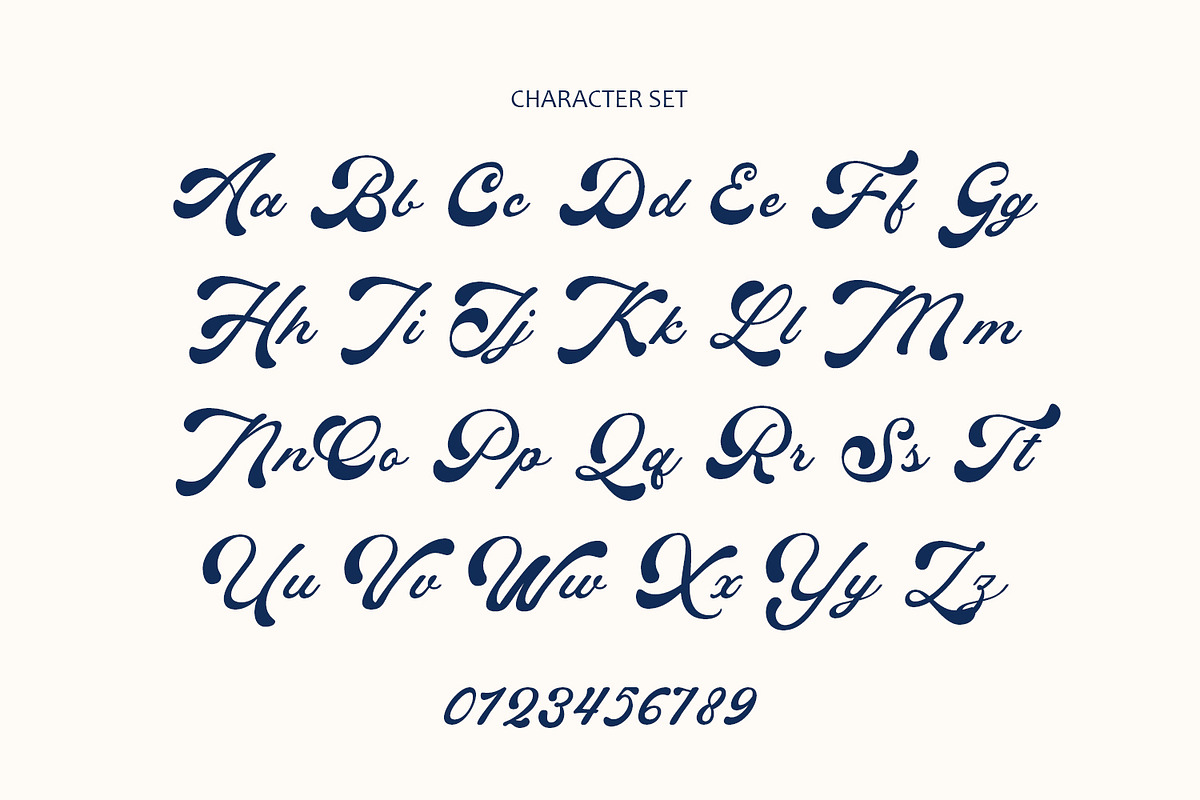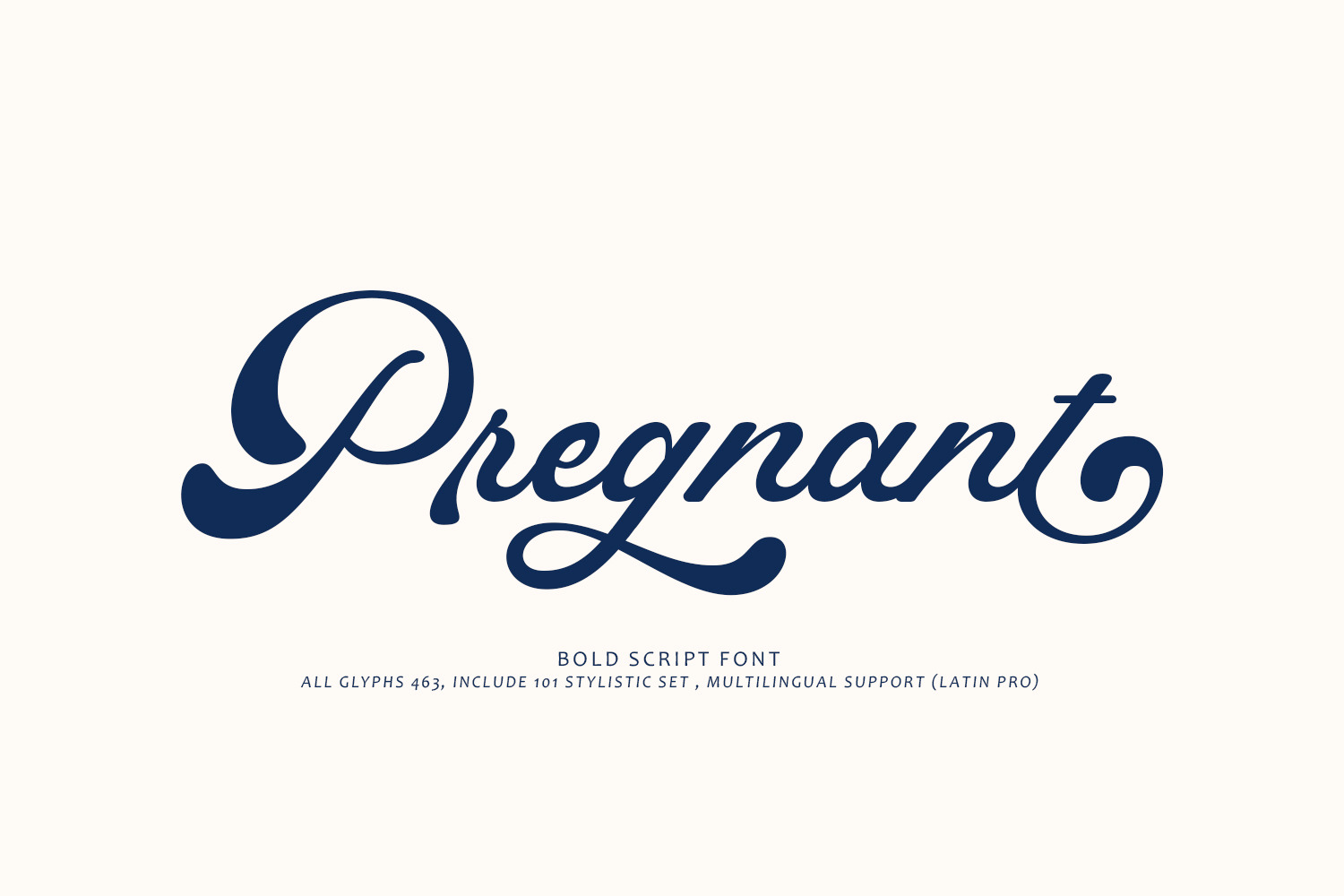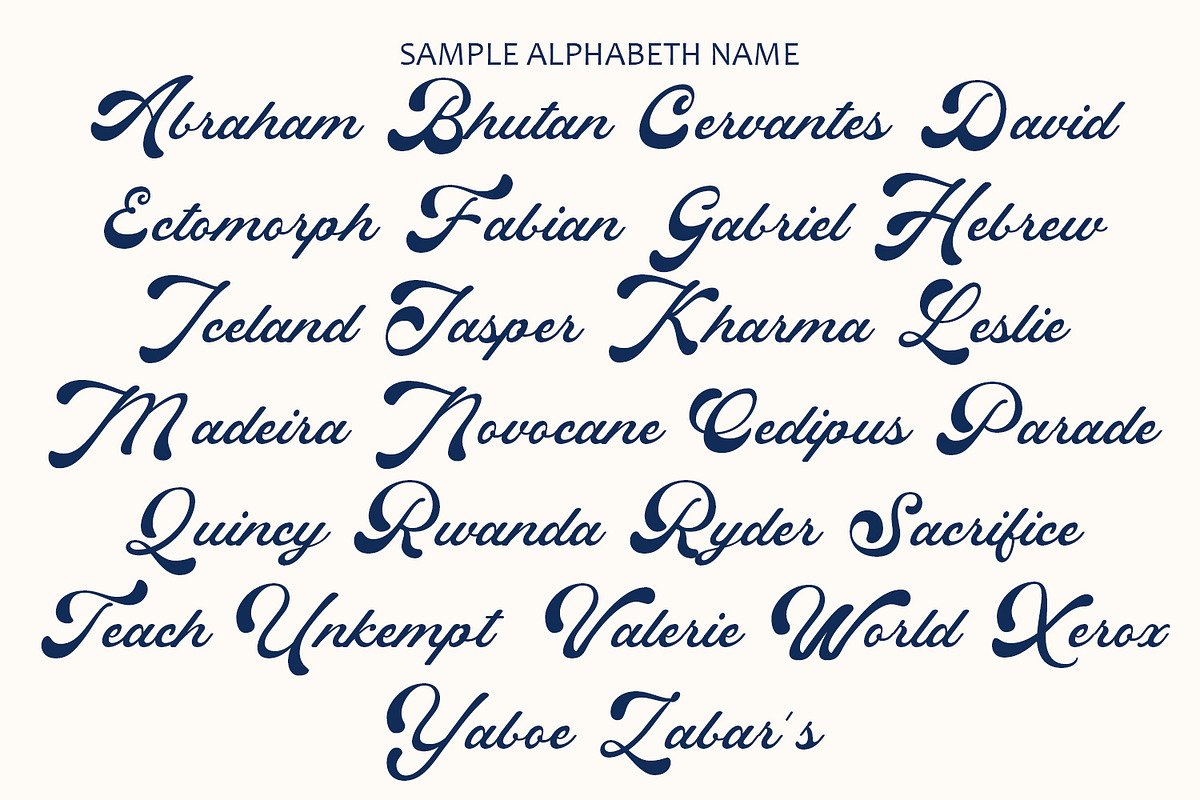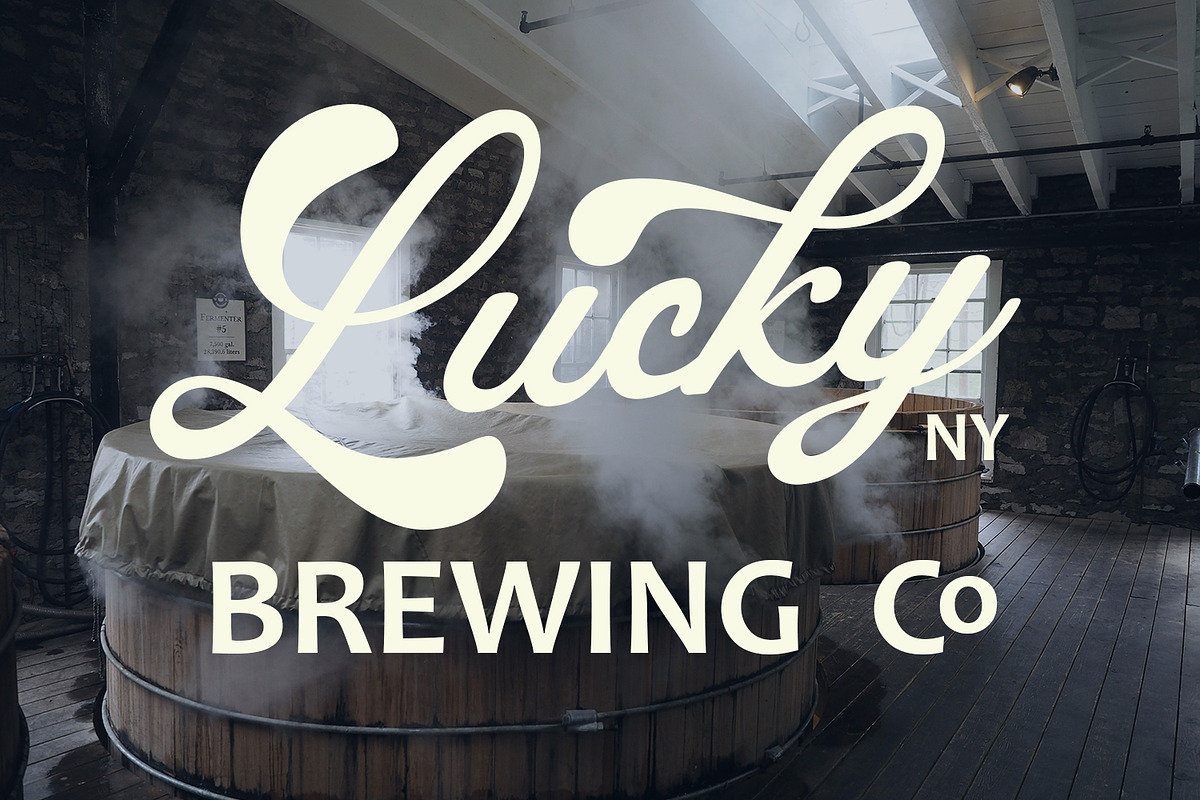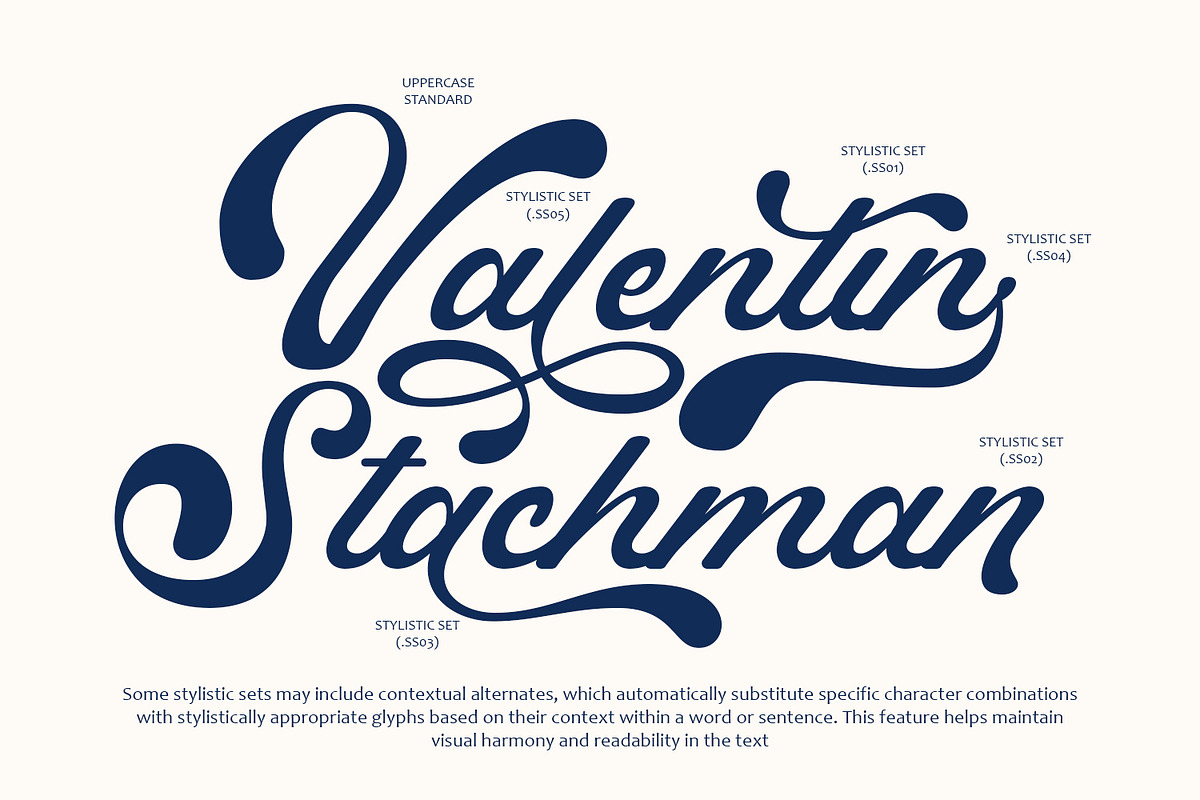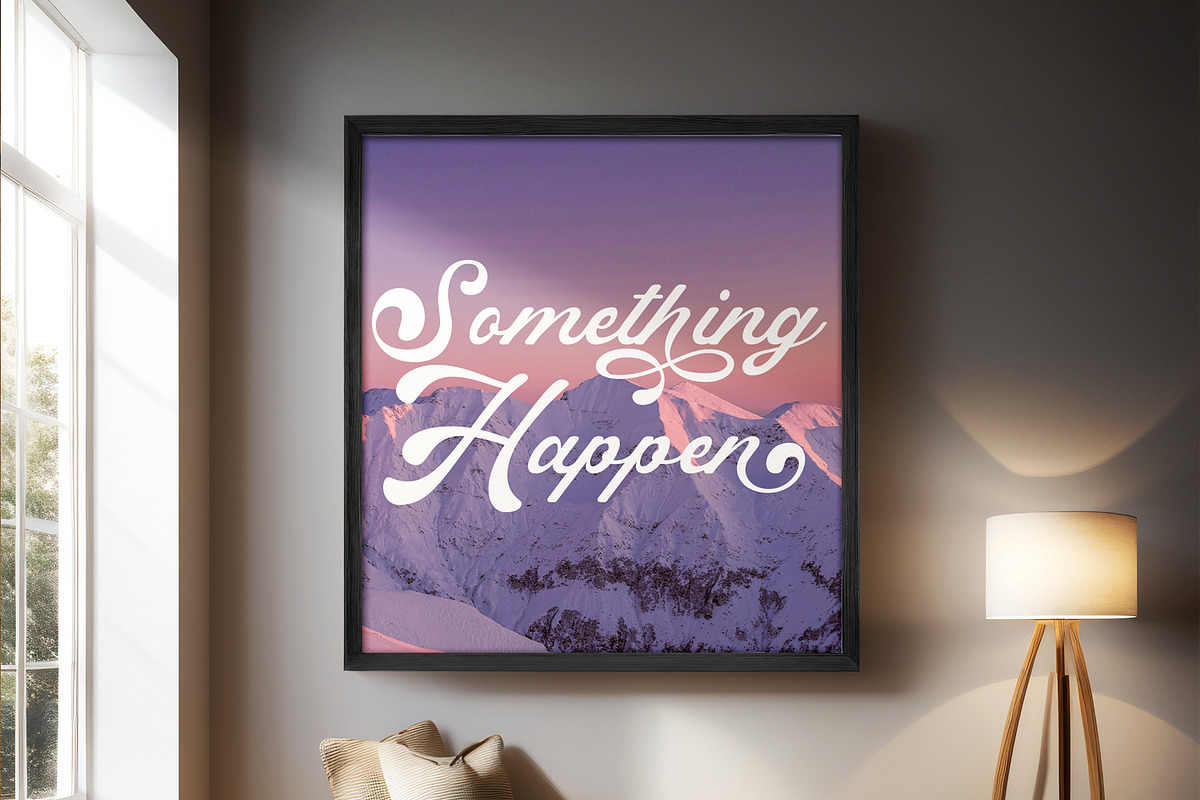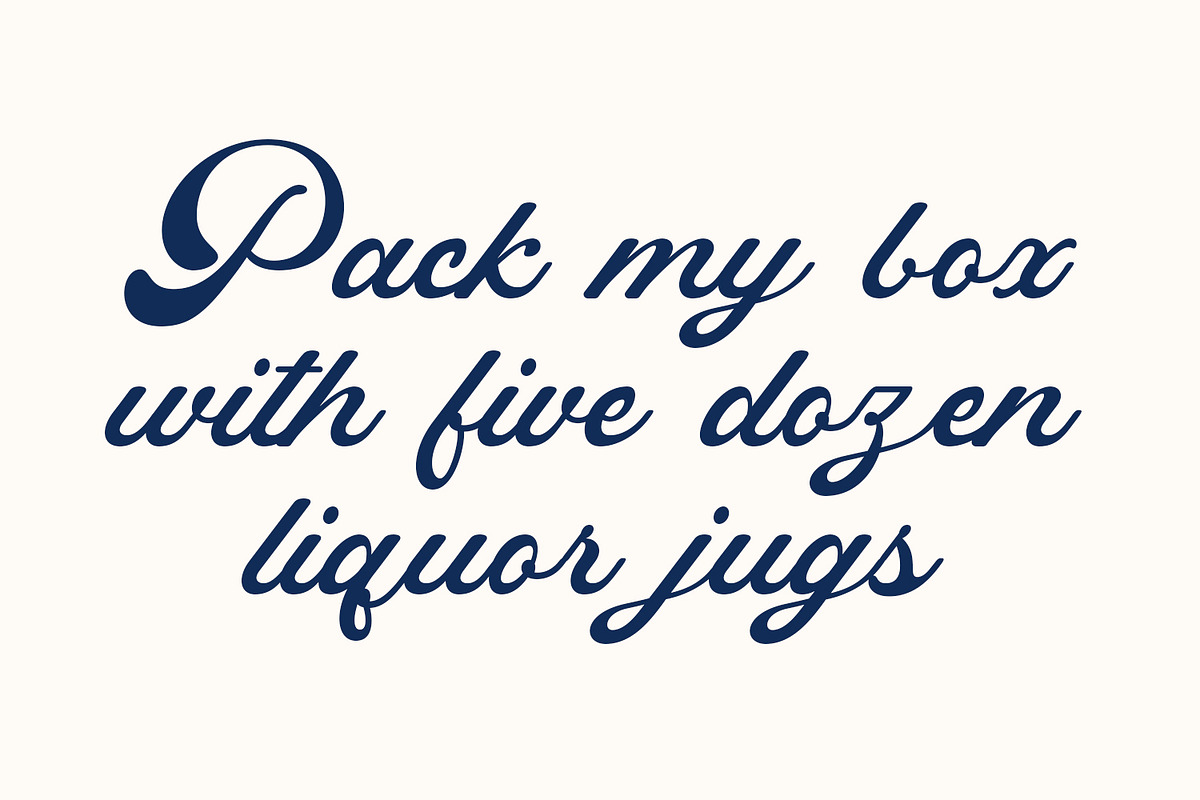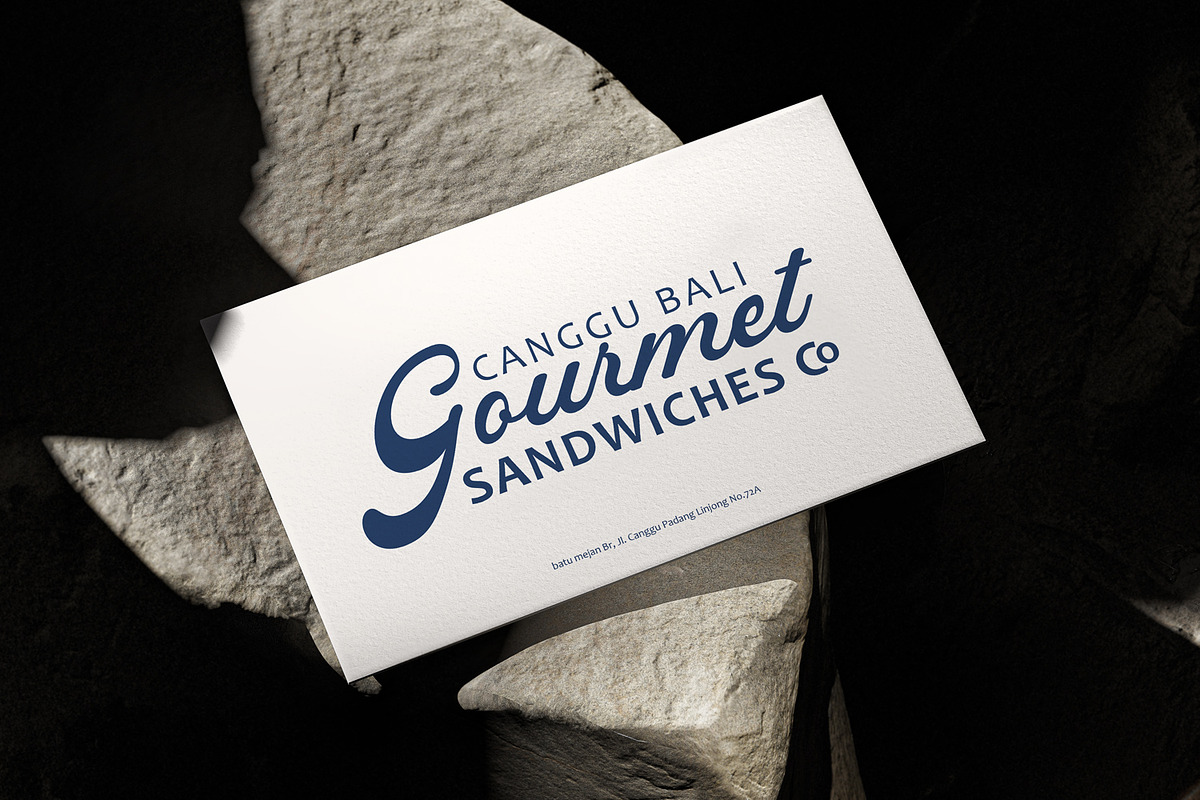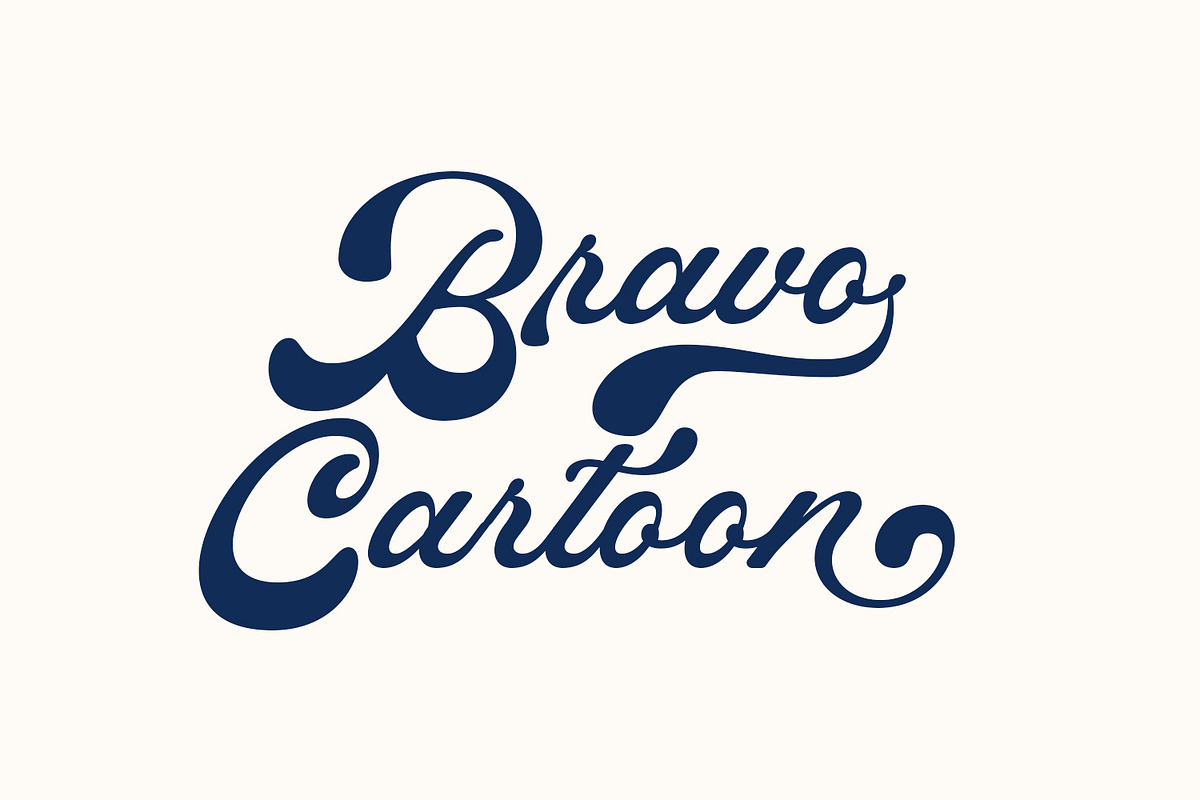
Pregnant - Bold Script Font
"Pregnant" bold retro script font is a distinctive and eye-catching typeface that combines the nostalgic charm of retro design with the boldness of contemporary script fonts. Here’s an explanation of its key features:
Bold Retro Aesthetic: "Pregnant" embraces a retro design aesthetic, drawing inspiration from vintage signage, advertisements, and typography. The bold, thick strokes and playful curves evoke a sense of nostalgia, making it perfect for projects that aim to capture a retro vibe.
Dynamic Letterforms: The font features dynamic and flowing letterforms that are both bold and elegant. The smooth, continuous strokes create a sense of movement and energy, enhancing the visual appeal of any text.
High Impact: The boldness of "Pregnant" ensures that text stands out prominently, making it ideal for headlines, titles, logos, and any content that needs to make a strong visual statement. Its thick strokes and dramatic curves draw attention and convey a sense of confidence and strength.
Versatility: While "Pregnant" has a distinct retro style, its bold script nature makes it versatile for various design applications. It can be used in branding, packaging, posters, social media graphics, and more, adding a touch of vintage charm to contemporary designs.
Expressive and Playful: The retro script style of "Pregnant" allows for expressive typographic compositions. Its playful curves and bold strokes add personality and character to the text, making it suitable for fun, creative, and engaging projects.
Readability: Despite its bold and decorative nature, "Pregnant" maintains readability. Each character is carefully designed to ensure clarity, even in complex compositions or smaller sizes, making it practical for a wide range of uses.
Modern Touch: While rooted in retro design, "Pregnant" incorporates modern elements, making it relevant for today's design trends. This blend of old and new gives it a unique edge that can appeal to both nostalgic and contemporary audiences.
Overall, the "Pregnant" bold retro script font offers a perfect blend of vintage charm and modern boldness. Its dynamic letterforms, high impact, versatility, and expressive style make it a standout choice for designers looking to create memorable and visually striking typography with a retro twist.